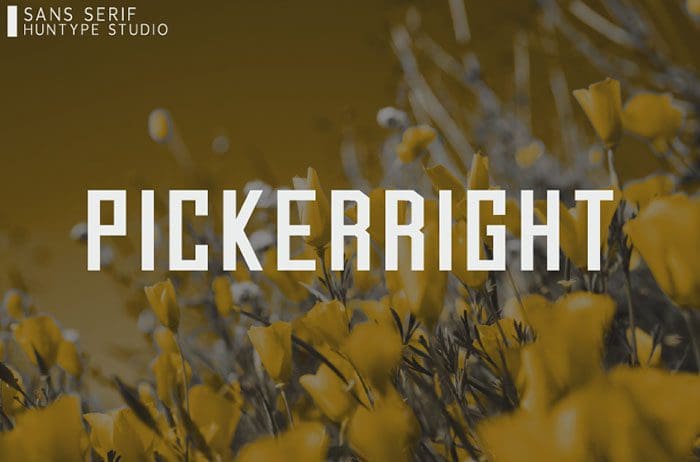
Pickerright Sans Serif Font
Pickerright Sans Serif Font is inspired by classic typography and brings its own unique style to any design project. Whether you’re looking for fonts for Instagram or calligraphy scripts for DIY projects, Pickerright will turn any creative idea into a true piece of art! Thanks to Mas Anis for sharing this font! Take a look at this portfolio for more of his stunning fonts.